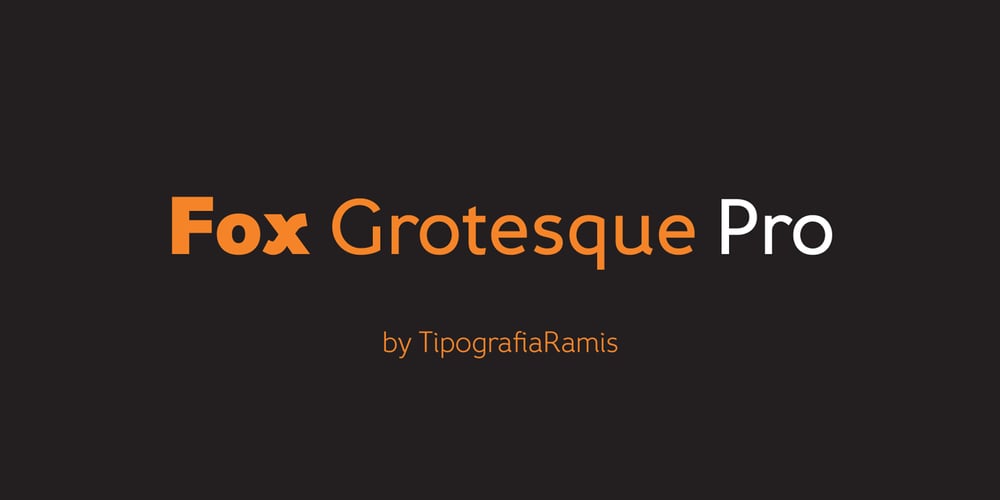
Fox Grotesque Pro
Fox Grotesque Pro font
Fox Grotesque Pro Font Family was designed by Ramiz Guseynov and published by TipografiaRamis. Fox Grotesque Pro contains 10 styles and family package options. Fox Grotesque Pro is follow-up version of Fox Grotesque family. Typeface consists of ten font styles with extended support for most Latin languages plus Cyrillic. Fox Grotesque Pro release in OTF format and includes some opentype features – proportional/tabular, lining/oldstyle figures, slashed zero, ligatures, fractions…